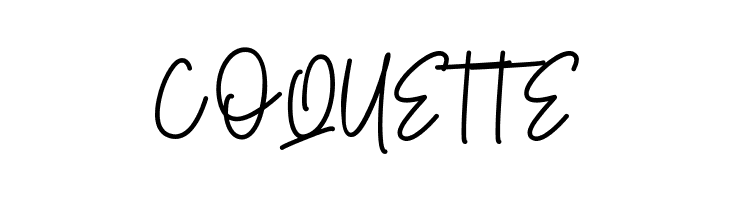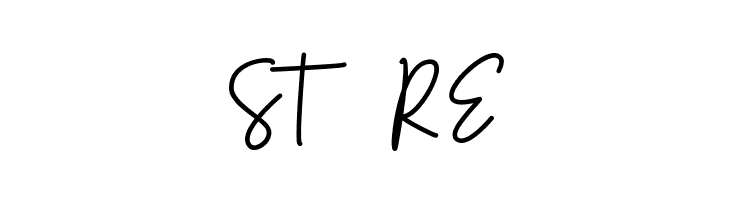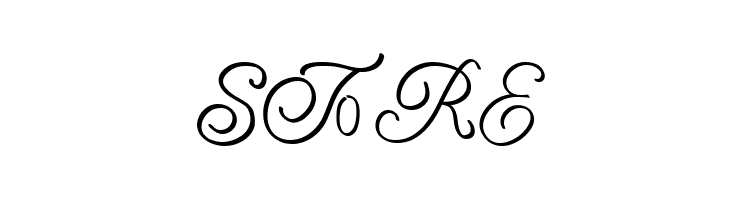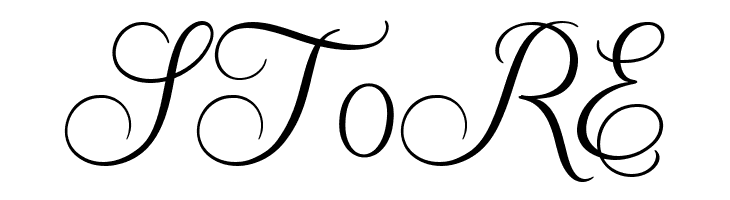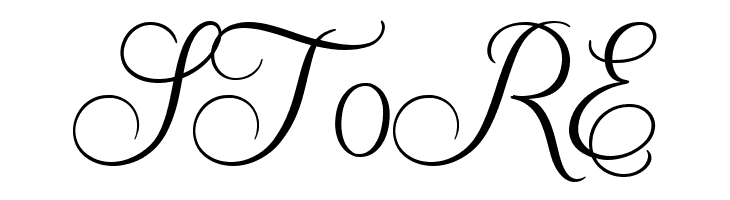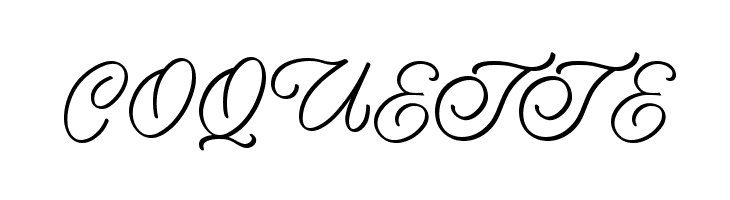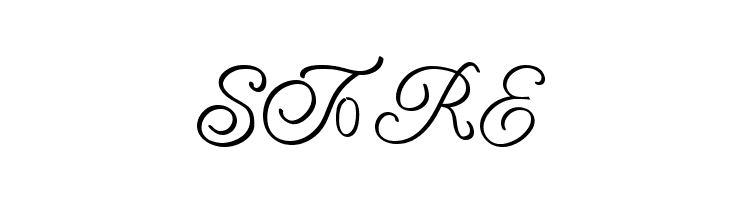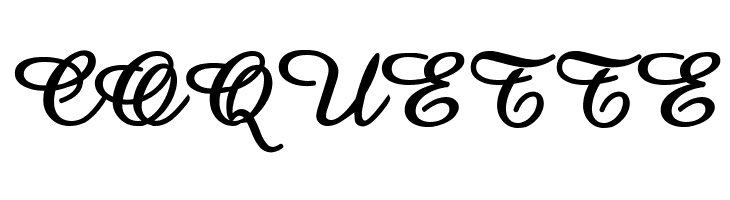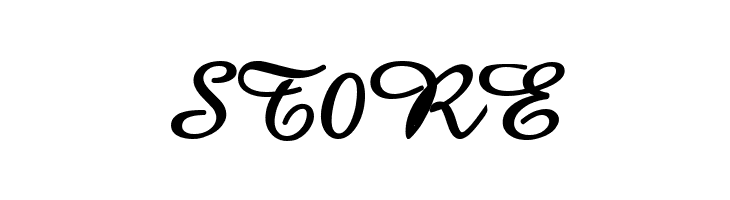
An elegant script font with intricate loops and swashes, perfect for sophisticated designs.
A playful, casual handwritten font with fluid, connected strokes.
A lively, flowing handwritten script font with smooth, elongated letterforms.
An elegant and flowing script font with ornate uppercase and smooth lowercase letters.